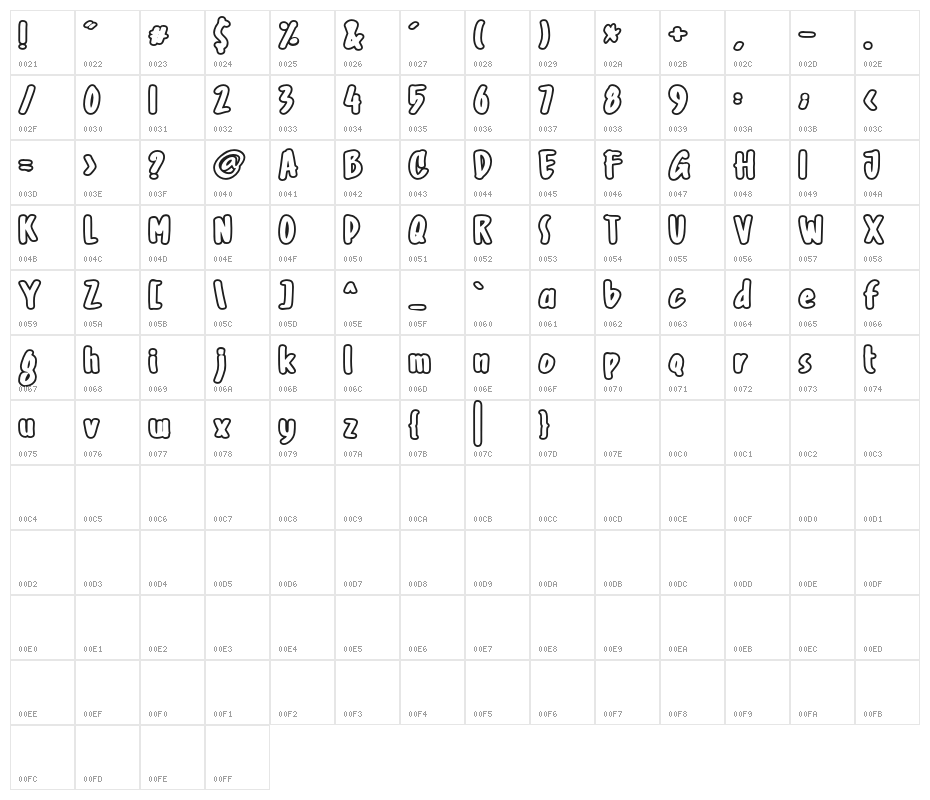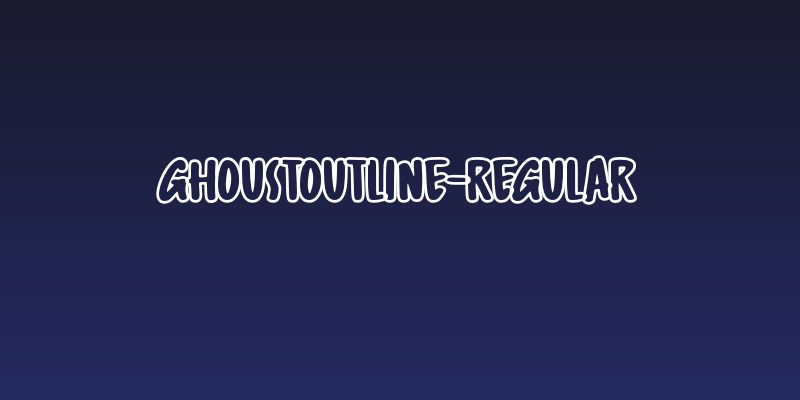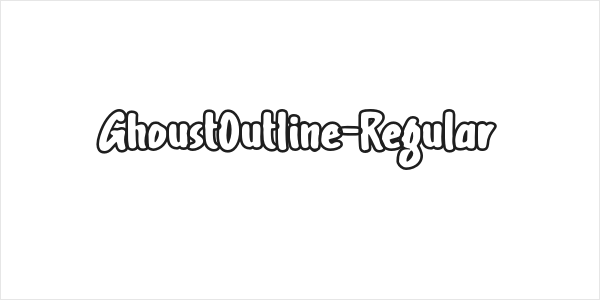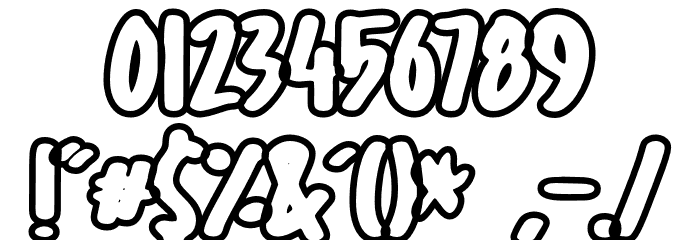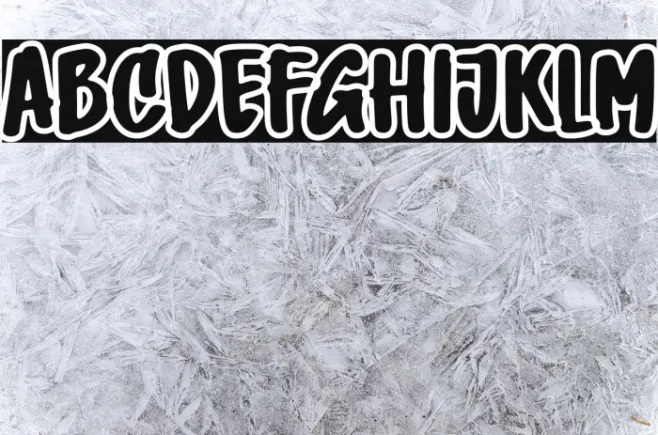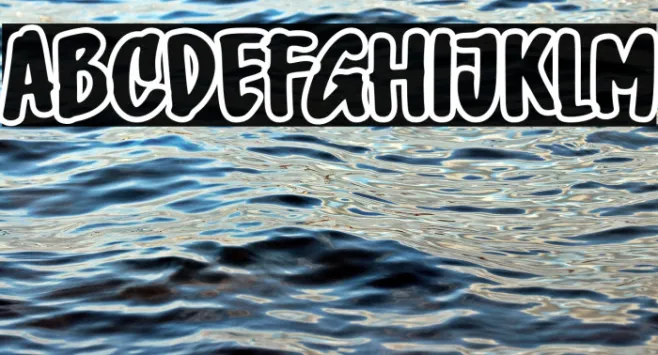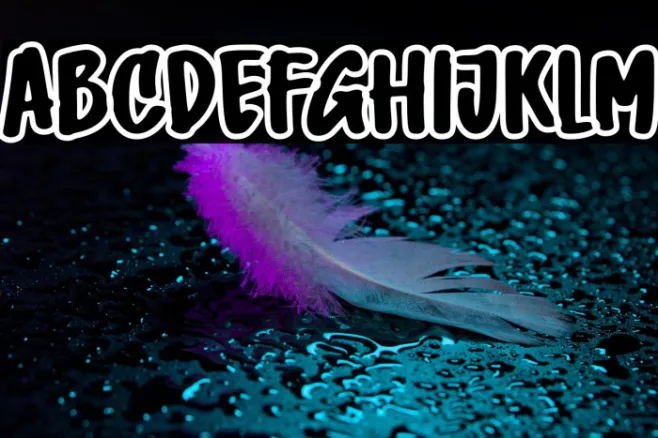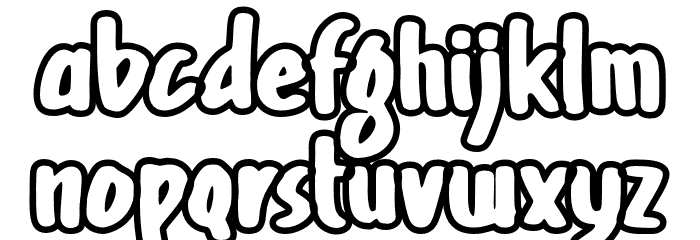
GhoustOutline-Regular Font
GhoustOutline-Regular Description
This font features a playful and bold outline style, characterized by thick, rounded edges and a cartoonish appearance. The uppercase and lowercase letters maintain a consistent width, creating a cohesive look. The numbers and special characters follow the same design principles, ensuring uniformity across all glyphs. The font's outline nature gives it a unique, eye-catching quality, making it ideal for designs that require a fun and informal touch. Its bold presence is suitable for projects that aim to capture attention and convey a sense of whimsy and creativity.
| Overall Style | Playful, Cartoonish |
| Proposed Projects | Ideal for children's books, comic strips, playful branding, and party invitations. |